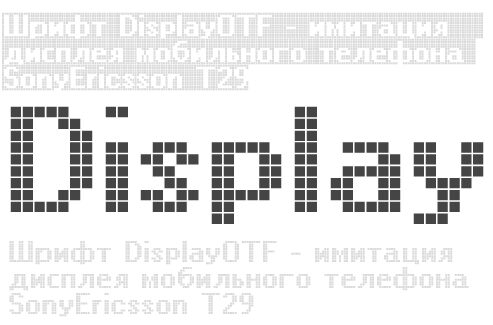
DisplayOTF by Denis A Serikov is a free pixel display font built from square modules arranged on a strict grid. Its broken curves and evenly stepped diagonals recall early screen lettering.
Video game title cards and electronic-music posters can use its block construction to suggest low-resolution graphics. Merchandise and event signage take on the same digital texture, especially when the letters become part of a tiled pattern or interface motif. Its clearest audience is designers working with arcade culture, retro computing, and technology-themed entertainment.